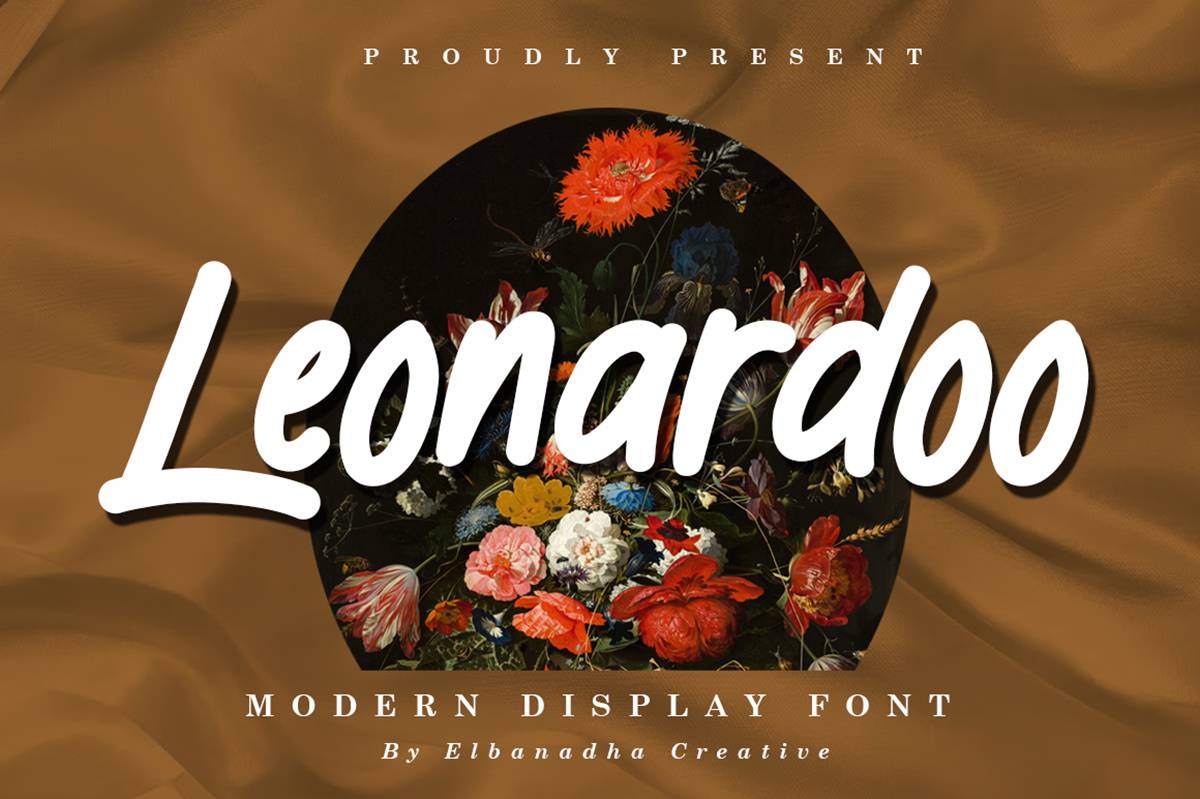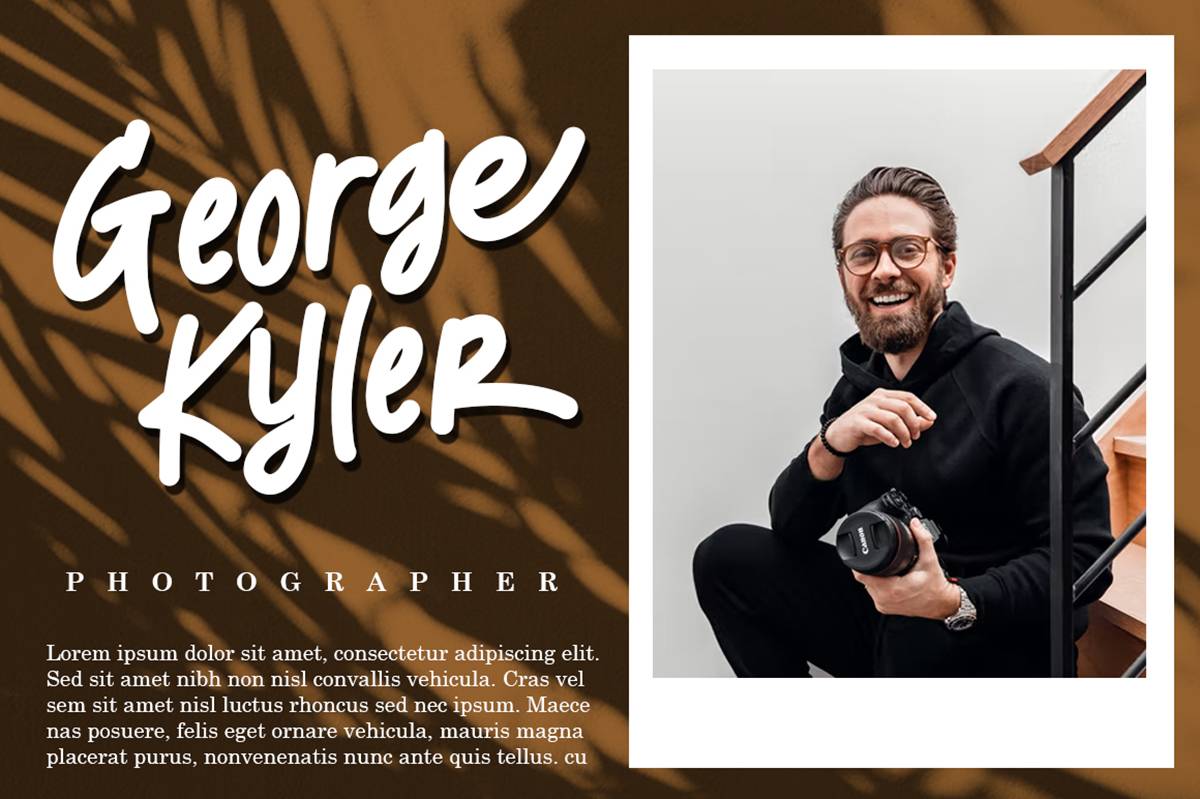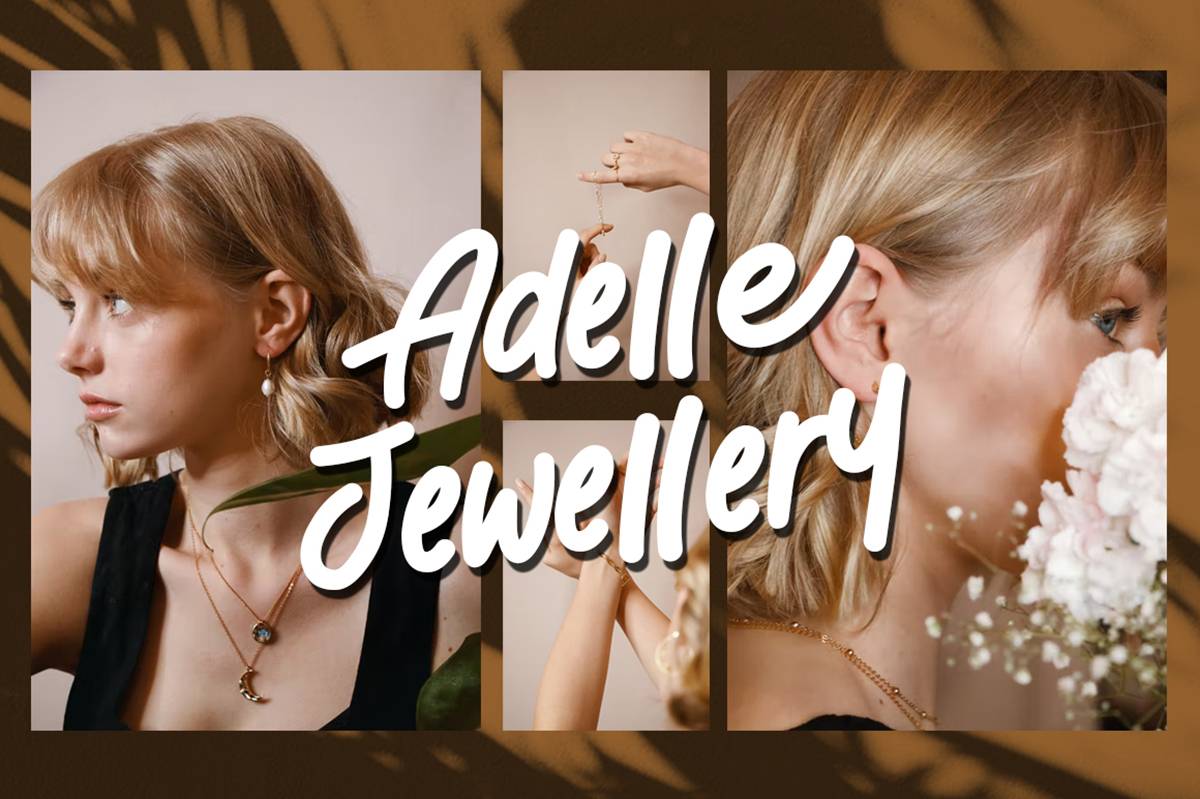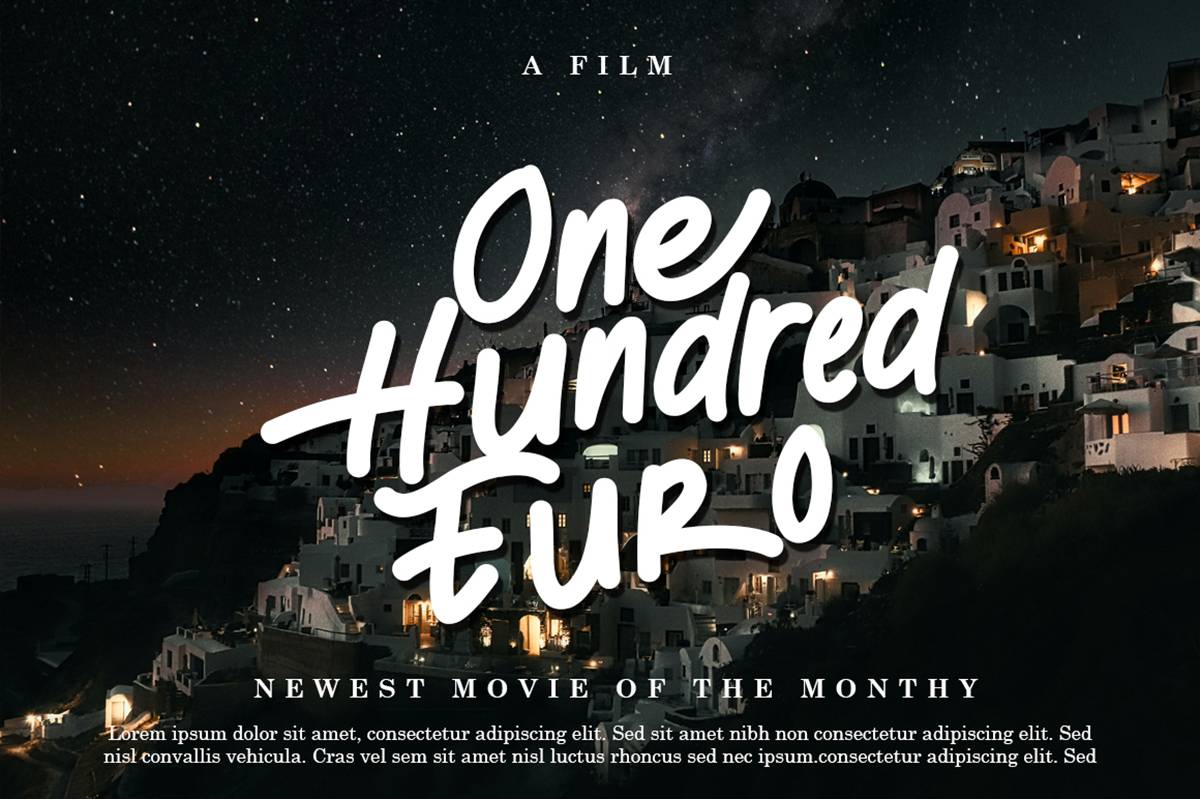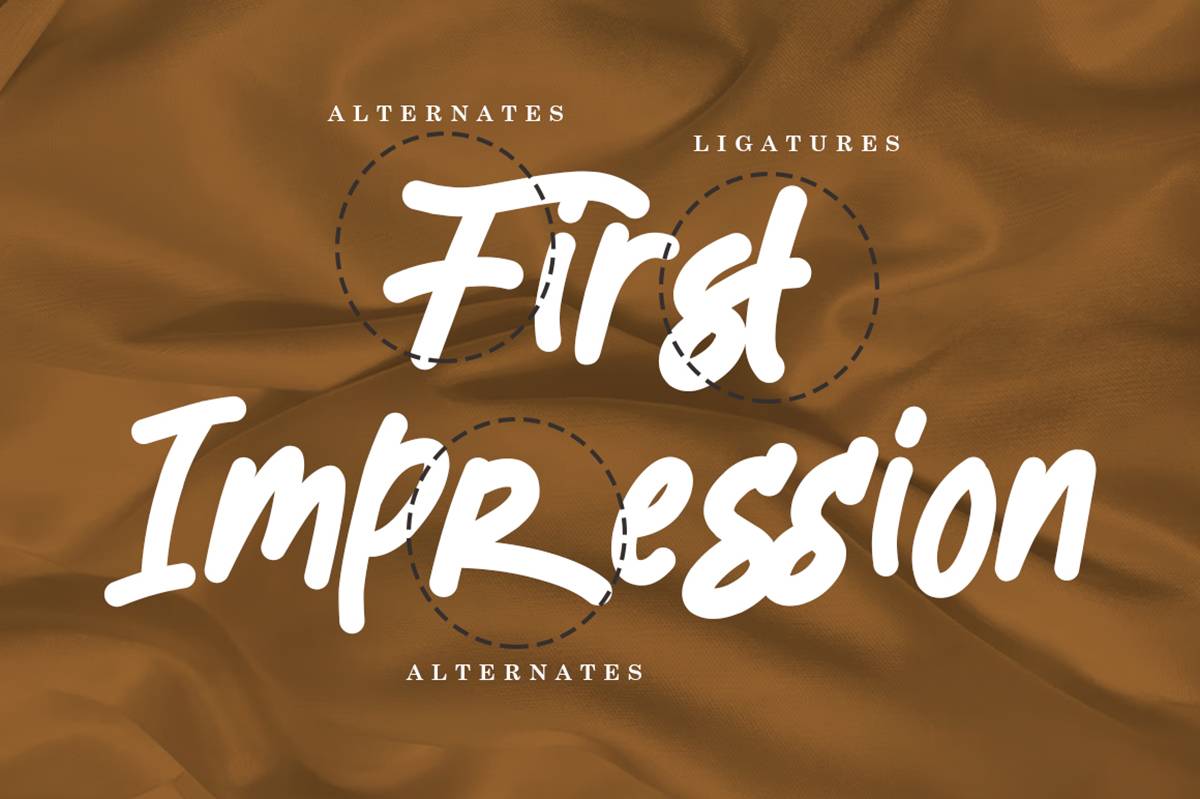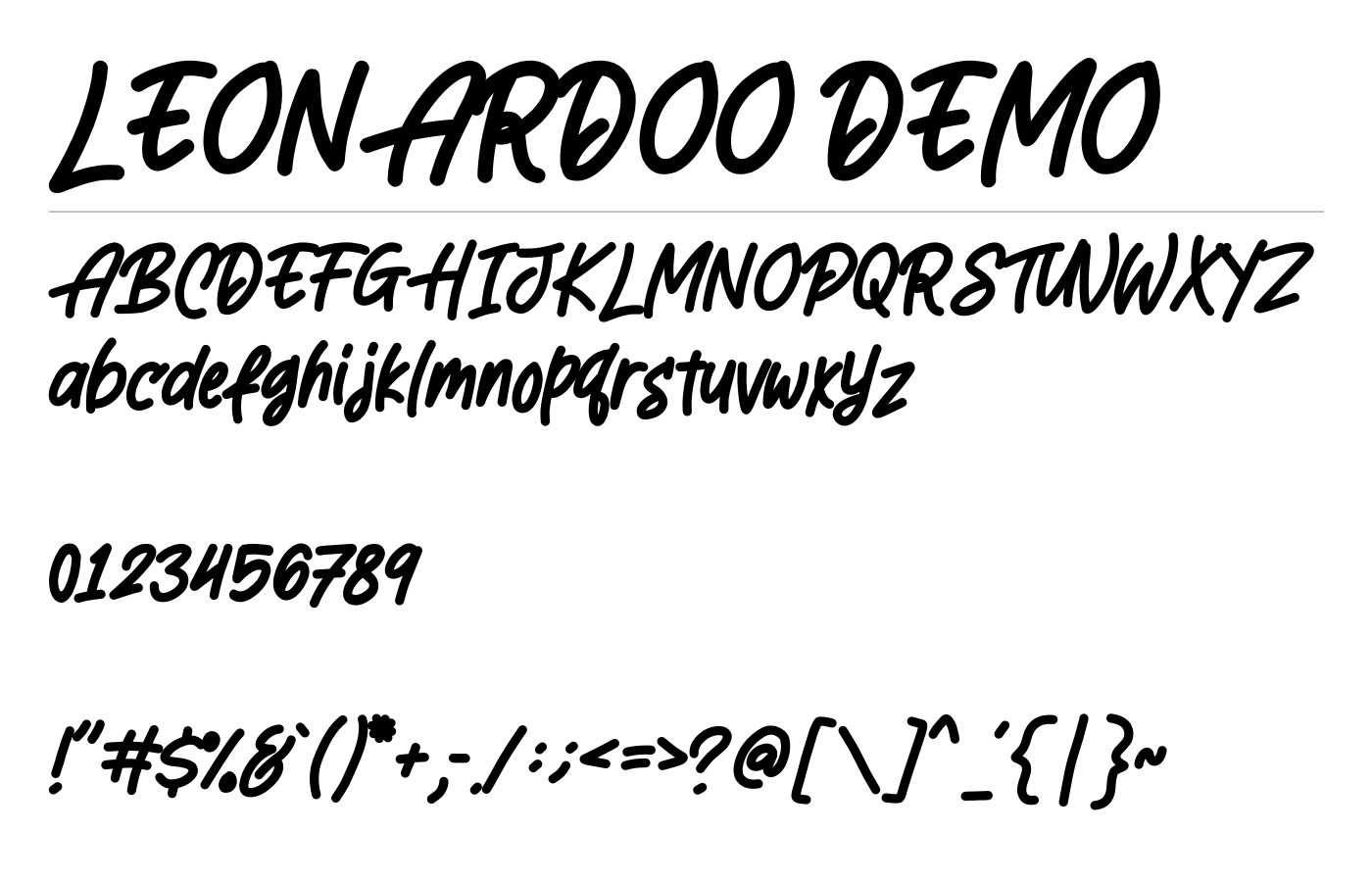
Leonardoo is a lively and informal script-style font with a casual, handwritten feel. Its moderately bold weight, slightly slanted strokes, and playful letterforms make it perfect for creative projects that want to convey energy and personality, such as logos, posters, and social media graphics. This font works best in display settings where its dynamic and friendly style can capture attention and add a personal touch.
Leonardoo Font
About Leonardoo Font
| Font family | Leonardoo Font |
| Release date | 2022-01-18 |
| Designer | Elbanadha Creative |